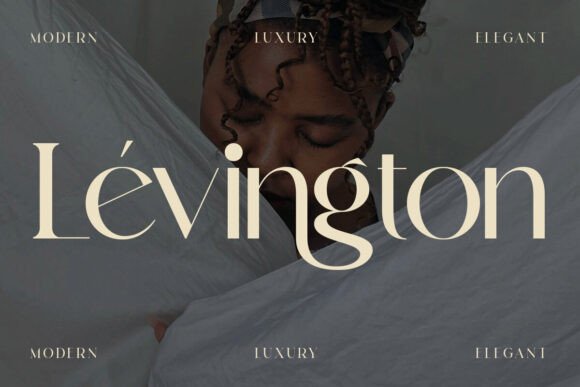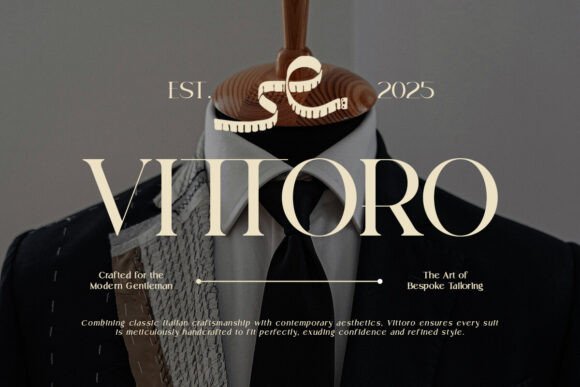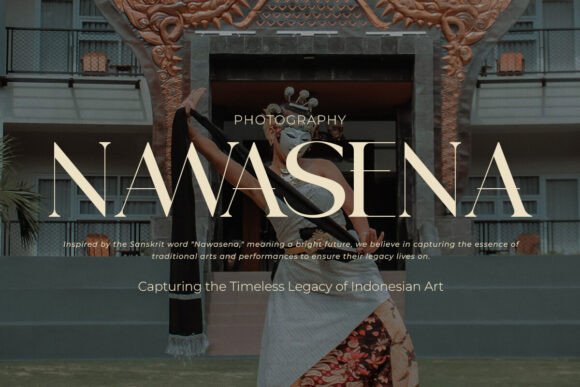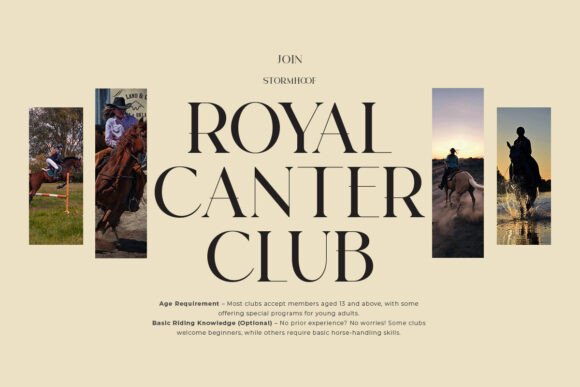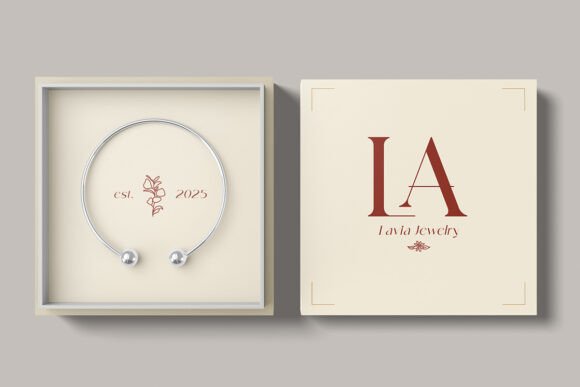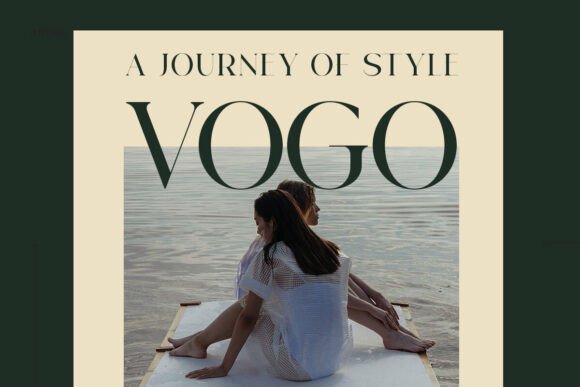
Introduction to Royale Elegance Font
As a designer, there’s nothing quite like the thrill of discovering a new font that elevates your creative project to the next level. For me, that moment came when I stumbled upon the Royale Elegance Font. Its sophisticated curves and refined aesthetic instantly transported me to a world of high-end design, where every detail matters.
Whether you’re working on a premium packaging design or a luxury branding project, the Royale Elegance Font is a game-changer. With its transparent background and free download option, it’s easily accessible to designers of all levels. This versatile typeface is perfect for those who appreciate a subtle yet bold presence in their designs. As a valuable design resource, the Royale Elegance Font is sure to become a go-to choice for any creative project requiring high-quality typography.
So, what sets the Royale Elegance Font apart from other serifs? Its unique blend of classic and modern elements creates an elegant look that’s both timeless and contemporary. With the Royale Elegance Font, you’ll be able to add a touch of refined sophistication to your designs, making them truly stand out from the crowd.
Key Features of Royale Elegance Font
- High-quality, elegant font design perfect for creative projects and design resources.
- Features a large character set, including uppercase and lowercase letters, numbers, and special characters.
- Unique characteristics: elegant, refined, and sophisticated design, making it ideal for high-end design projects.
Honest Review: Royale Elegance Font
I recently had the chance to work with the Royale Elegance Font, and I must say it’s been a game-changer for my creative projects. The high-quality design and elegant feel of this font make it perfect for any sophisticated or luxurious theme.
- ✨ What works well:
- The Royale Elegance Font is incredibly versatile, making it suitable for a wide range of creative projects, from fashion magazines to high-end product packaging.
However, I did encounter a few limitations with this font. The lack of a bold weight option can be a bit restrictive, especially when working on designs that require a strong emphasis.
- ⚠️ Limitations:
- No bold weight option, which can limit its use in certain design contexts.
- The font may not be suitable for body text, as it can be a bit too elegant and may read poorly at smaller sizes.
Overall, I’m really impressed with the Royale Elegance Font and would highly recommend it to anyone looking for a high-quality, elegant font for their creative projects. With a little bit of creativity, this font can really elevate your designs to the next level!
Royale Elegance Font
The Royale Elegance Font is a high-quality design resource perfect for creative projects that demand sophistication and elegance. With a free download option, you can access this font and elevate your designs to the next level.
Tips for Getting the Most Out of Royale Elegance Font
To get the most out of the Royale Elegance Font, use it in combination with a transparent background to create a clean and elegant design. Experiment with different font sizes, colors, and combinations to find the perfect look for your project.
The Royale Elegance Font is perfect for a variety of creative projects, including wedding invitations, corporate branding, and luxury product packaging. Its elegant design makes it an ideal choice for any project that requires sophistication and refinement.
Is the Royale Elegance Font suitable for high-quality design projects?
Yes, the Royale Elegance Font is a high-quality design resource that’s perfect for a wide range of creative projects. Its elegant and sophisticated design makes it ideal for use in branding, typography, and other design applications.